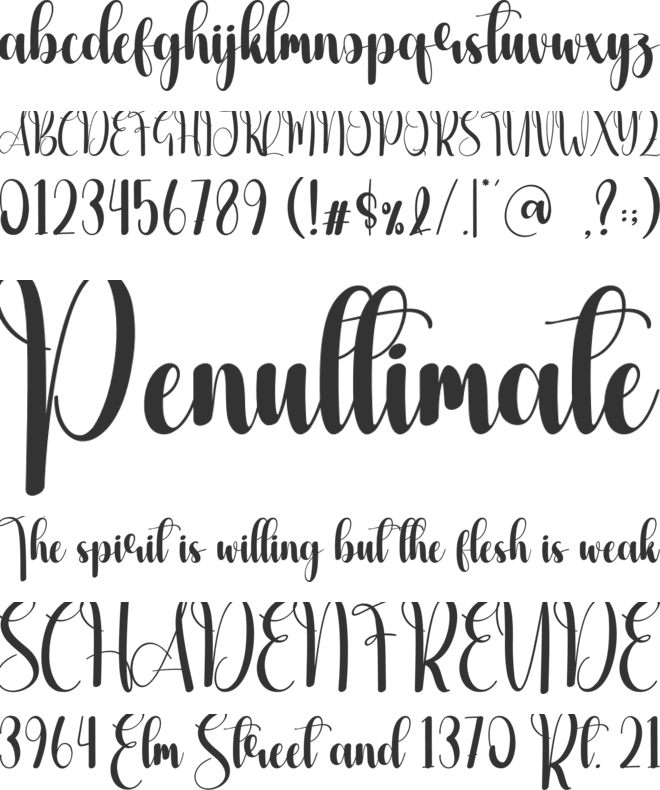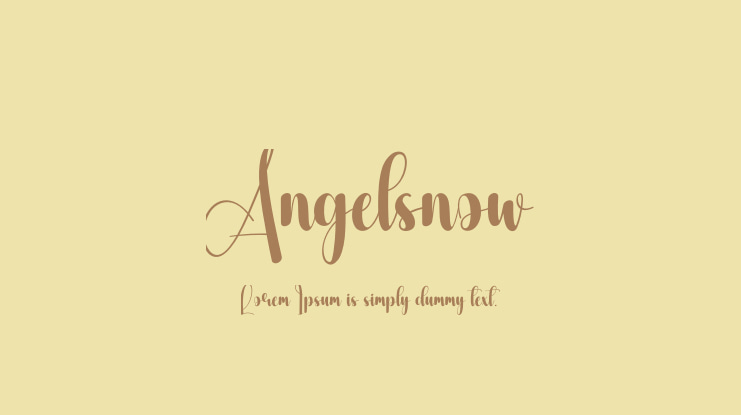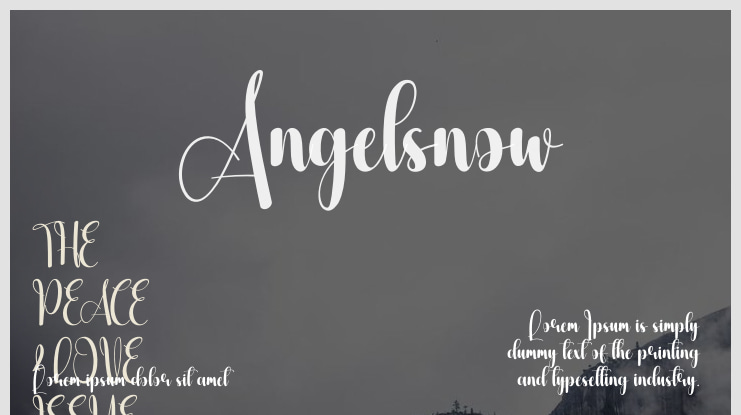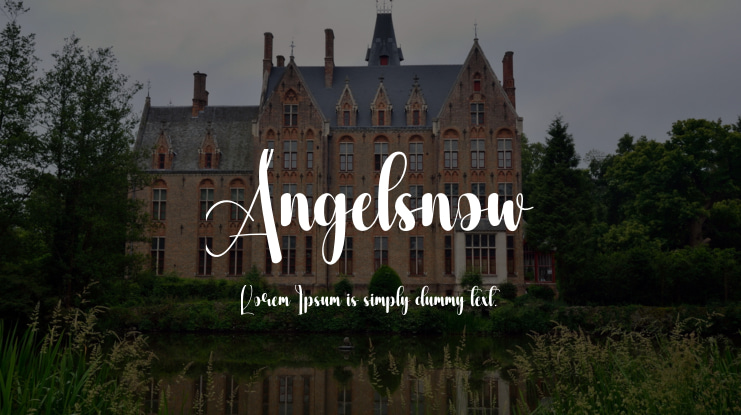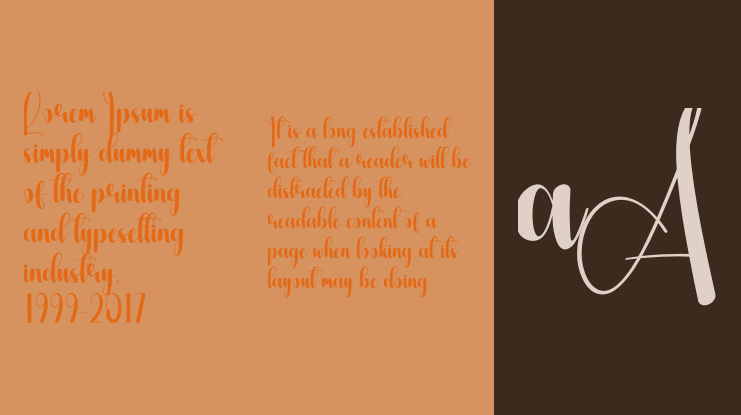
Angelsnow Font
Our latest style fonts are perfect for wall displays, wedding invitations, social media posts, logos, advertisements, product packaging, designs, labels, photography, watermarks, stationery, and any project that requires a touch of elegant handwriting.